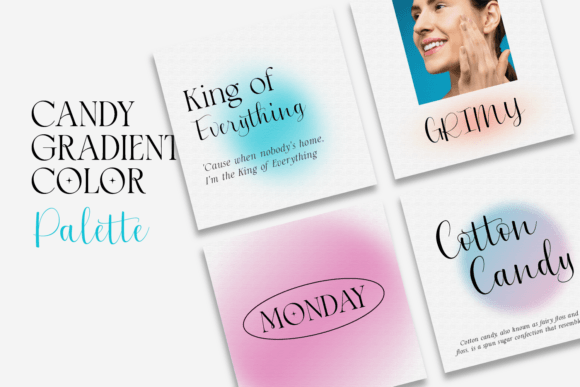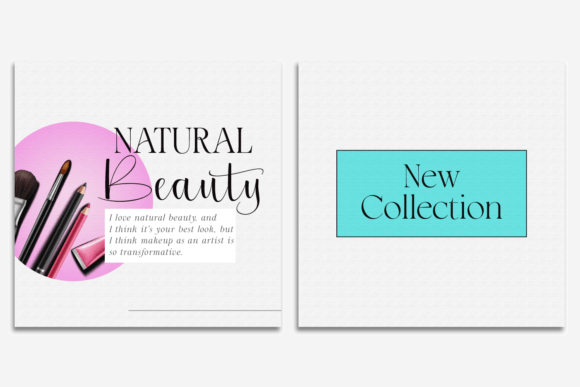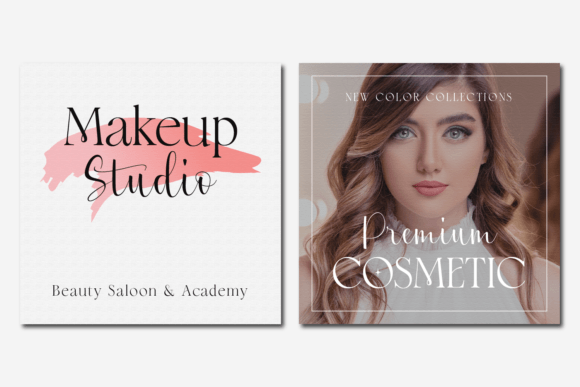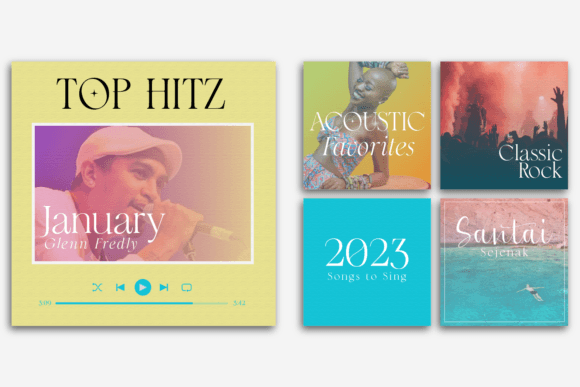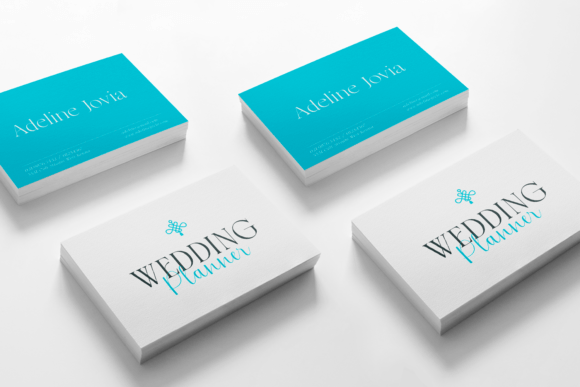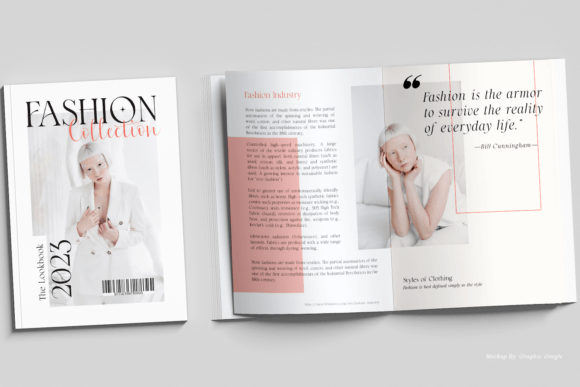
Melody Symphony Font – Free Download
Introduction to Melody Symphony Font
Add a personal touch to your design work with the exquisite and appealing handwritten font – Melody Symphony.
This font features a unique, hand-drawn style that gives your designs a warm, personal feel Perfect for use in invitations, logos, and any project that needs a touch of charm.
Key Features of Melody Symphony Font
Why Choose Melody Symphony Font?
Melody Symphony Font offers exceptional quality and versatility, making it a valuable addition to your design toolkit. Whether you’re creating for personal projects or commercial use, Melody Symphony Font delivers professional results.